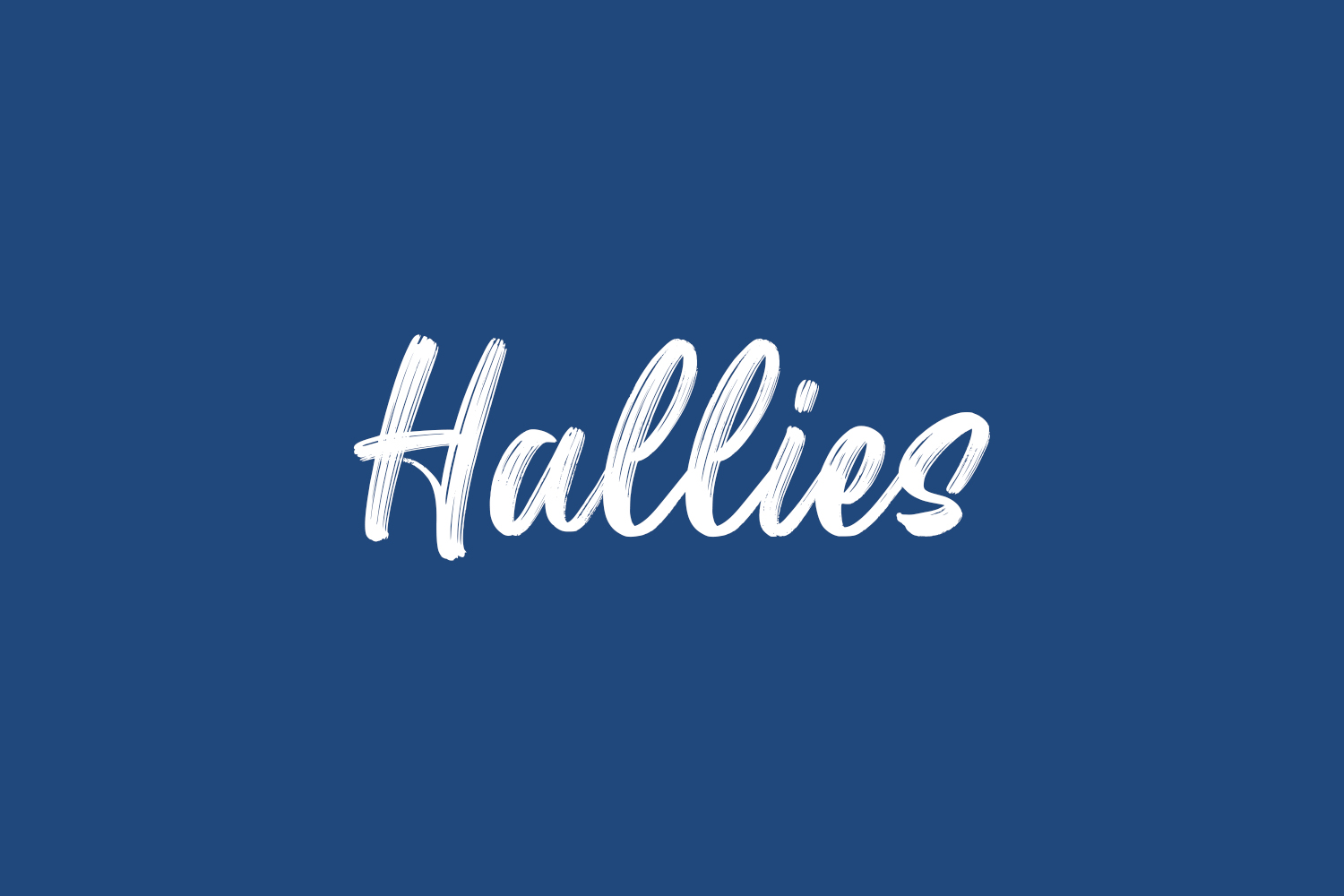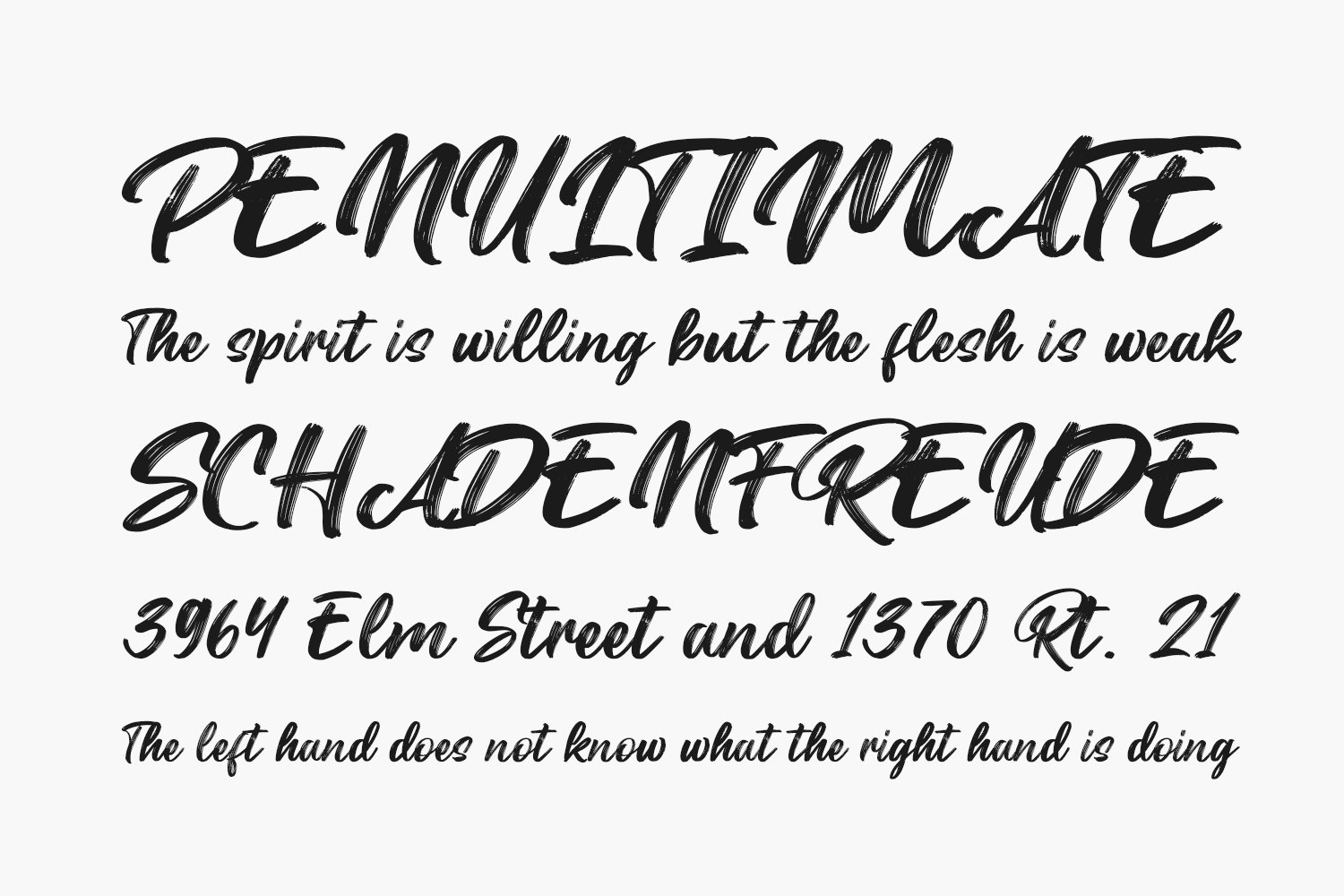
Hallies Free Font is a modern, playful and brushed script font. It’s great for crafters and designers. You can use it for various projects, such as blog posts, logos, branding, ads, invitations, greeting cards, planners, photo albums, decorations, and much more. Hallies Free Font was designed by Kong Font and is free for personal use only. Please purchase the full version for commercial use.